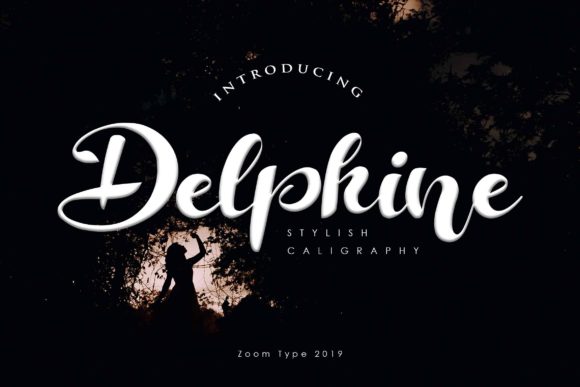
Delphine Font
Dive into the world of Delphine, a captivating script font that dances across your designs with enchanting allure. Crafted by the visionaries at ZoomType Studio, Delphine is not just a typeface—it's an artistic masterpiece.
With its bold strokes and captivating curves, Delphine transforms ordinary designs into extraordinary visions. Each letter, a work of art in itself, weaves a tale of elegance and intrigue. The unique characters dance and twirl, demanding attention and igniting imagination.
Indulge in the luxury of a font that elevates your creations beyond the mundane. Delphine's enchanting spirit breathes life into invitations, branding, and every design that yearns for a touch of whimsy.
Unleash the power of Delphine and witness the transformation of your designs. Embrace a world where creativity knows no bounds, where every word dances with grace and charm.